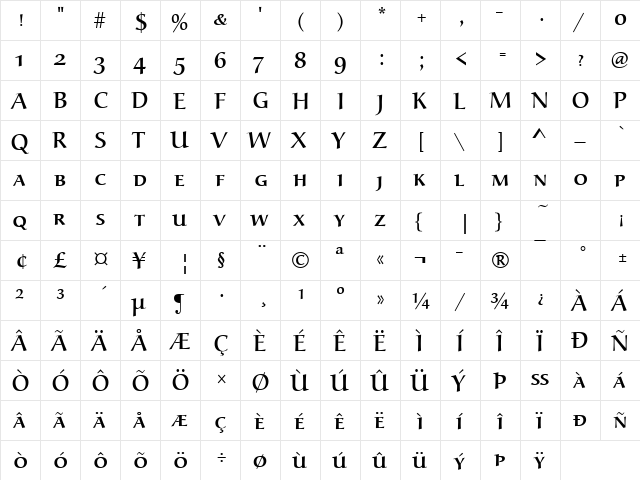
URWAlcuinSCT Regular Font Preview
URWAlcuinSCT Regular
URWAlcuinSCT Regular Font Details
Design Context for URWAlcuinSCT Typeface
URWAlcuinSCT offers clean, dependable letterforms without strong stylistic allegiance, making it a practical choice for designers who need flexibility.
Pro Tip: Use URWAlcuinSCT in both headline and body roles to test its range before committing to a single application.